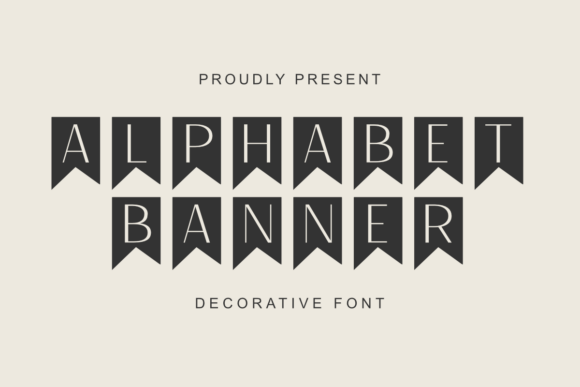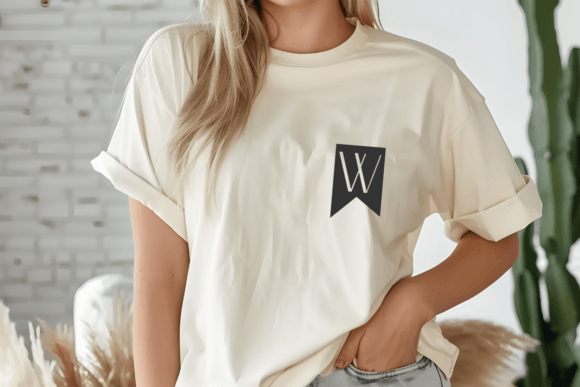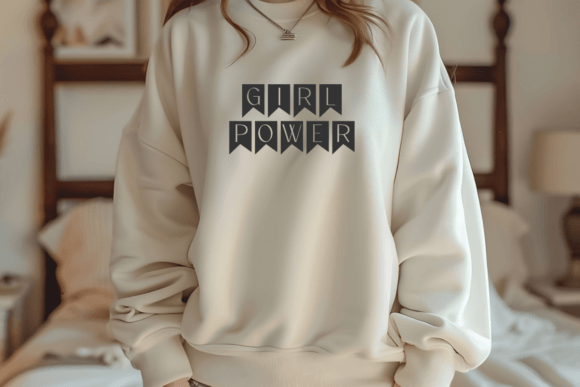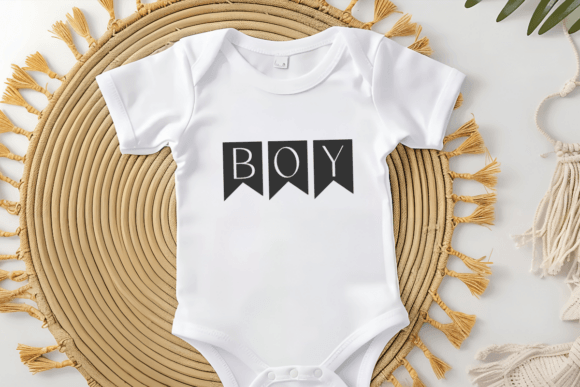
Alphabet Banner Font
About the Alphabet Banner Font
Experience the unique personality of Alphabet Banner Font, a font designed for impact. Alphabet Banner is a cool decorative font. This font is very unique because the letter shapes are incorporated into a unique banner shape. This font is very suitable for those of you who enjoy or have a hobby in the world of crafts. You can freely use this font to express your creative ideas such as for stickers, logos, branding, apparel, t-shirts, wall art, tattoos, baby clothes, initials and many other creative ideas.
Alphabet Banner’s playful, decorative style is ideal for headlines, short slogans, and logos where its unique banner shapes add visual interest. It works exceptionally well in branding for craft-focused businesses, children’s products, or projects with a whimsical, handmade aesthetic. Avoid using it for body text or long passages; its decorative nature makes it difficult to read at smaller sizes.
Pairing Alphabet Banner with a clean sans-serif like Open Sans for body copy provides a strong contrast, allowing the display font to shine. For a more sophisticated feel, consider pairing it with a classic serif such as Garamond or a slightly more geometric sans-serif like Montserrat. The combination creates visual harmony without overpowering the unique character of Alphabet Banner.
Its overall personality is best described as bold and playful, though its decorative nature also lends itself to a slightly quirky or retro vibe, making it a versatile option for projects needing a touch of fun and visual impact.
Alphabet Banner Font Usage Examples
Alphabet Banner Font Example